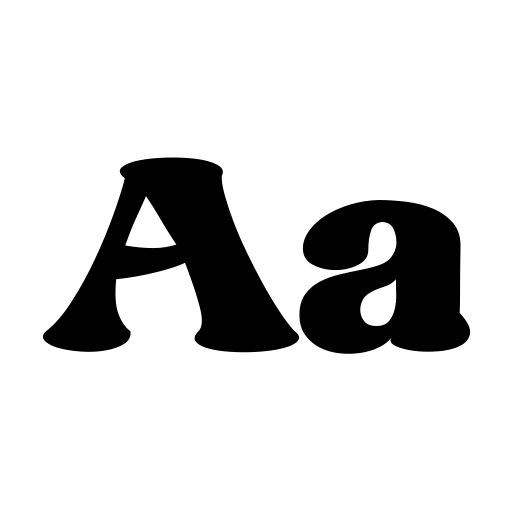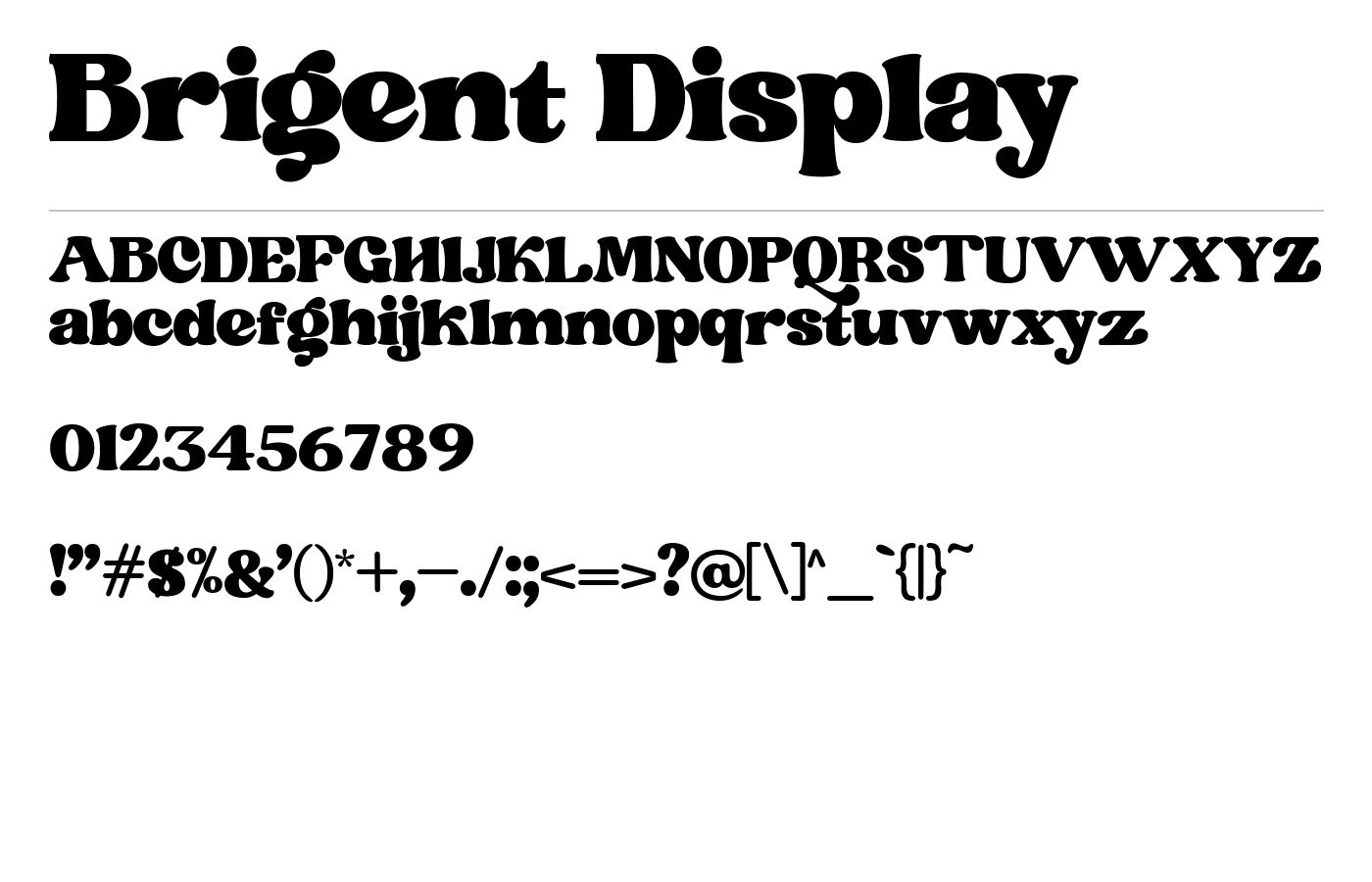
Brigent Display is a bold serif typeface with a strong presence and playful charm. Its thick, slightly rounded serifs and high stroke contrast give it a vintage yet lively feel, making it perfect for eye-catching headlines, logos, and packaging that want to convey warmth and character. This font works well where a distinctive and friendly statement is needed, blending tradition with a touch of whimsy.
Brigent Display Font
About Brigent Display Font